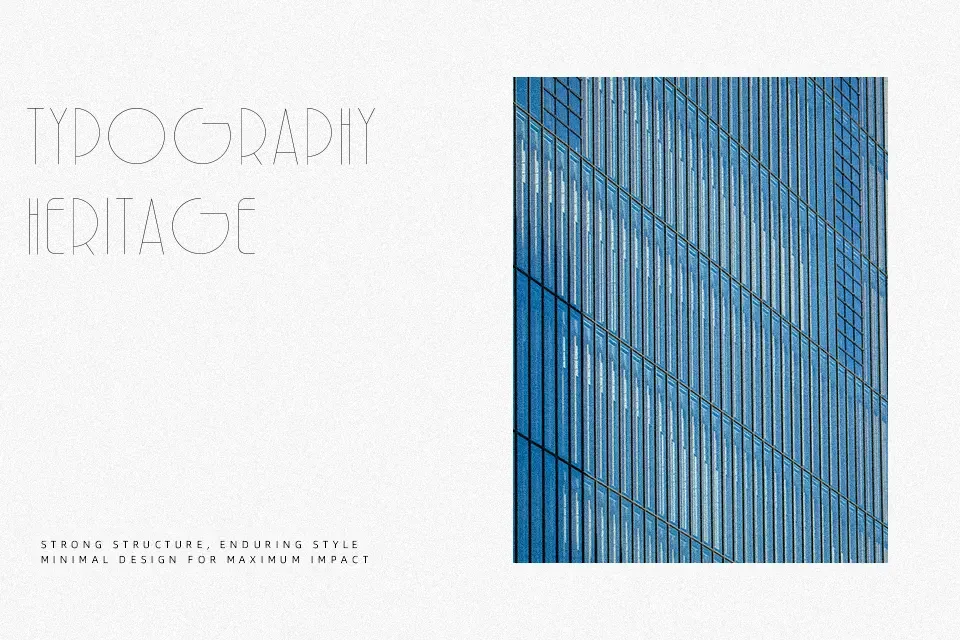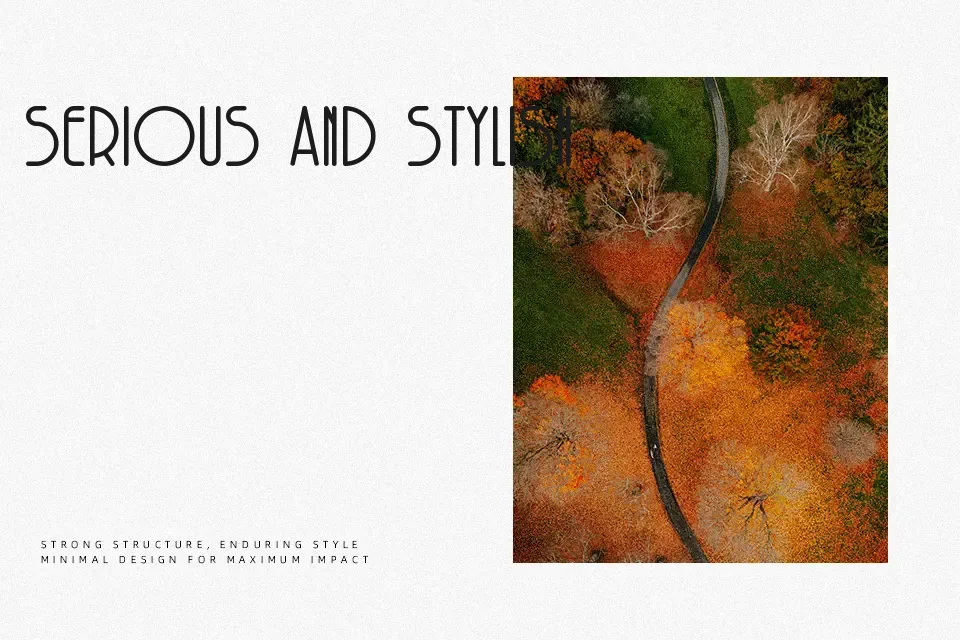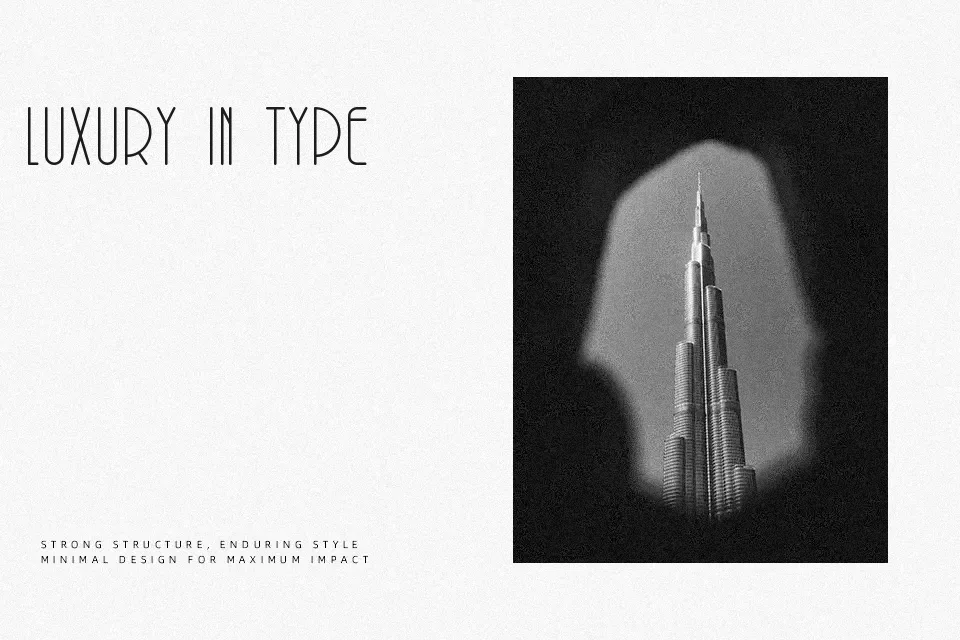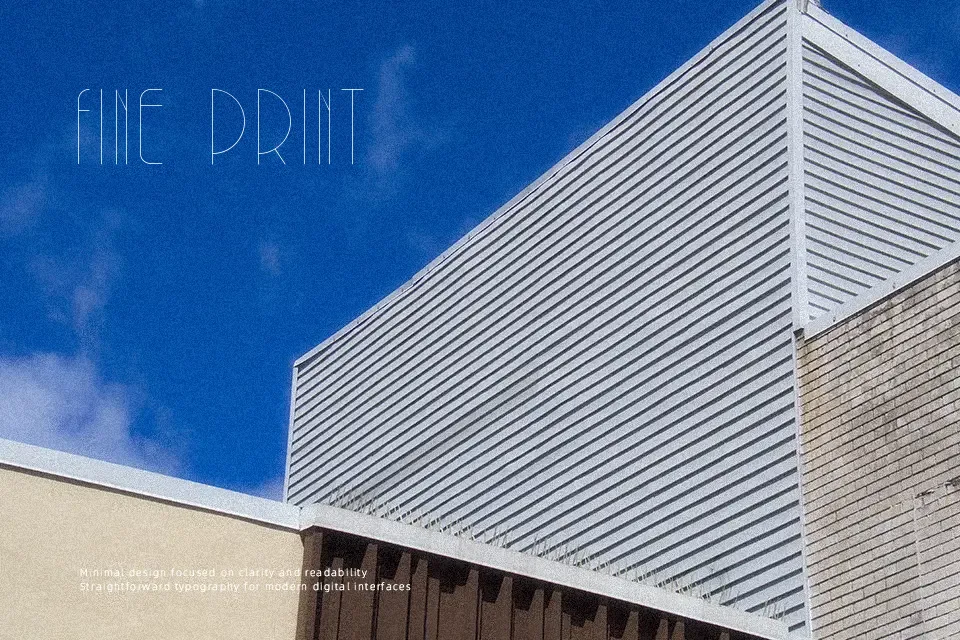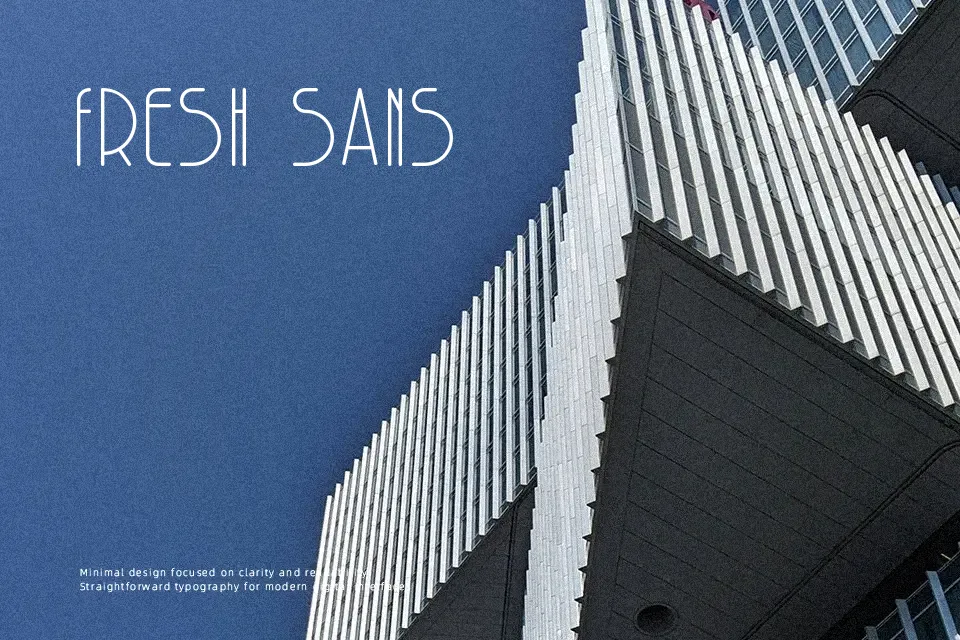
Solar Font
Designed by Manuel Ramos
Solar Font showcases a sleek, elongated silhouette characterized by narrow proportions and consistent stroke weights across all characters. The typeface maintains disciplined inner geometry and tight horizontal spacing, giving headlines a cohesive, rhythmic appearance on posters and packaging. Because the characters share uniform vertical alignment, the design establishes immediate prominence in short titles and creative branding. However, the compact spacing and compressed glyph widths make extended paragraphs difficult to parse comfortably at smaller scales. The letterforms perform with great clarity in prominent display environments where strong geometric character takes center stage.
vintage music posters, sci-fi book covers, apparel graphics, product packaging
continuous body text, dense mobile UI labels, legal disclaimers, spreadsheet tables
Perfect for branding, headline, and logo, with a clean and condensed style.